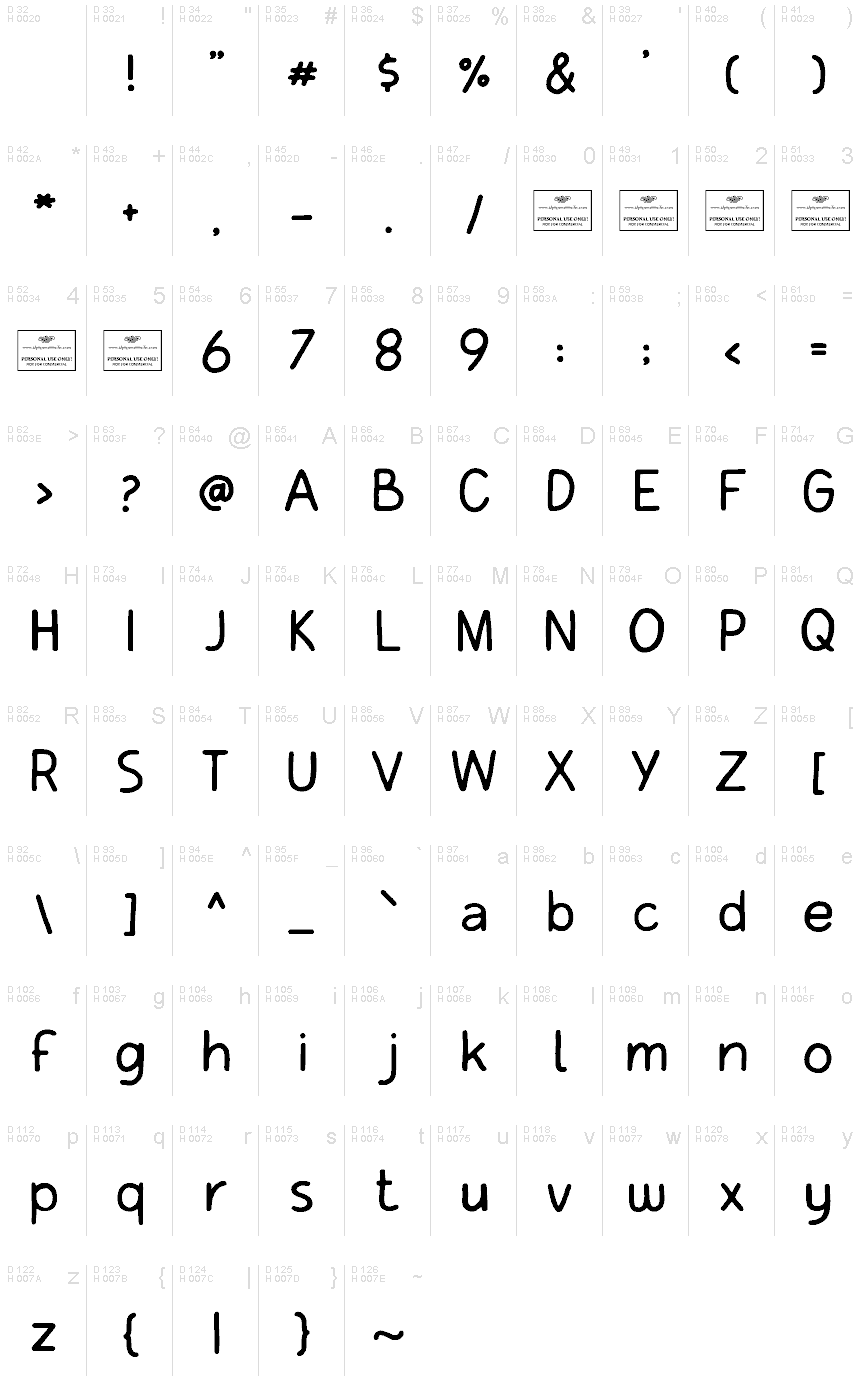
Rathskeller
Rathskeller font by Alpaprana Studio is a relaxed handwritten font with an easygoing mood. The hand-drawn feel gives it a casual smooth look that will be enjoyable to readers from all backgrounds. Thanks to its style, this font establishes an honest and straightforward communication with the reader. It is the perfect free handwritten font for those who want an authentic look without exaggeration.
Rathskeller can be used in all sorts of projects such as branding, packaging, books, invitations, posters, flyers, business cards and more. Use it for product labels featuring food items like cereals or teas where transparency is key.